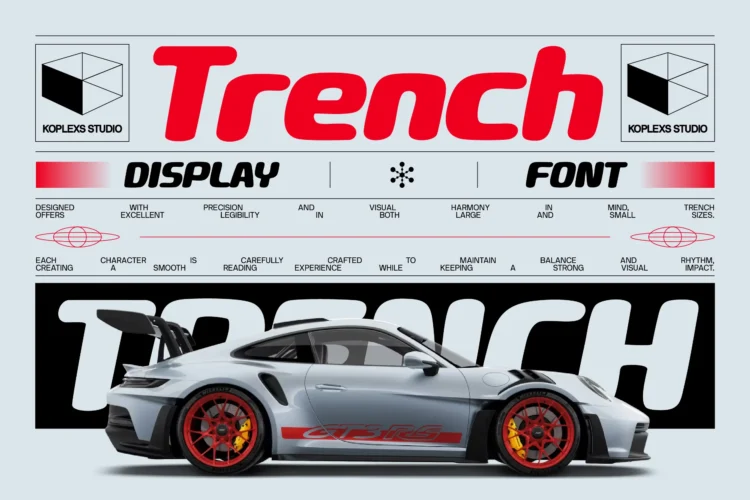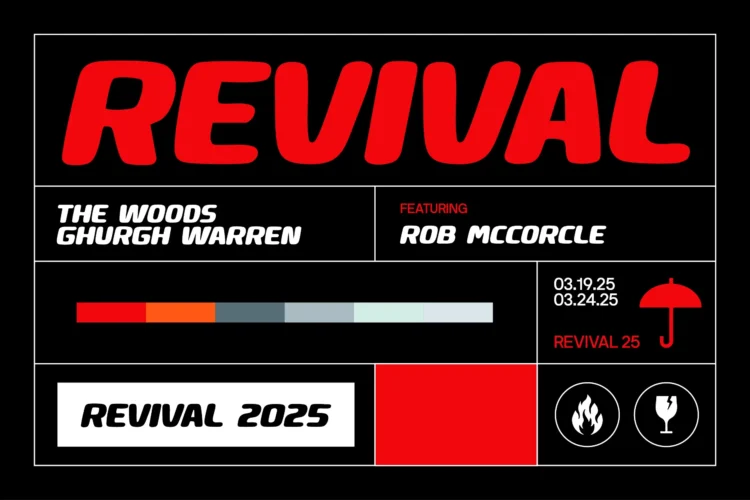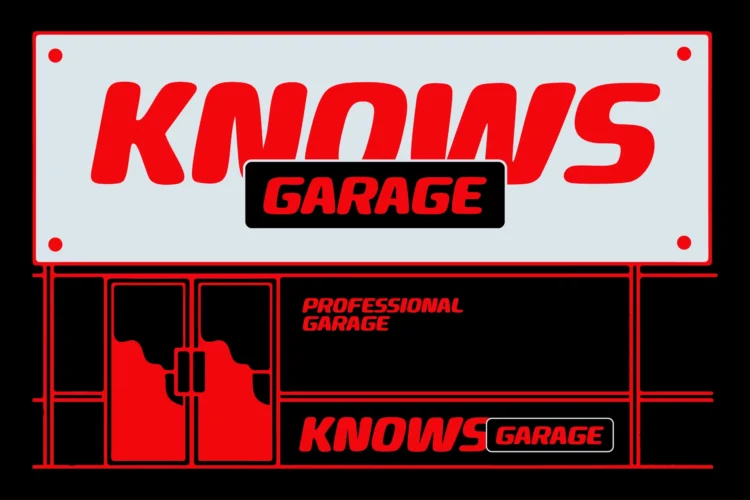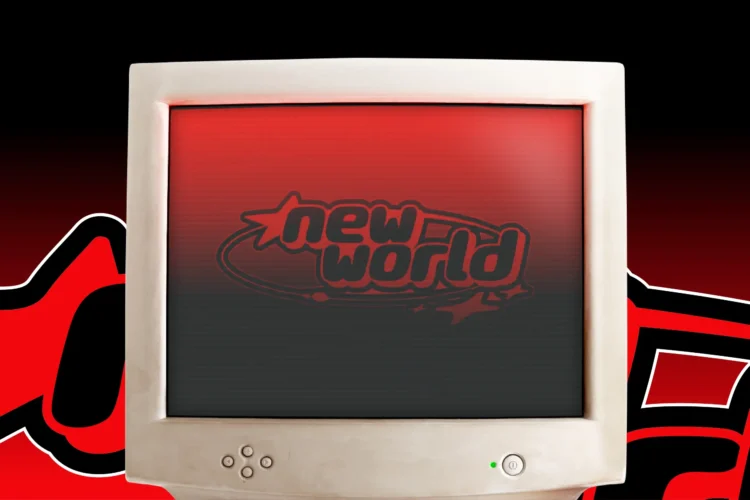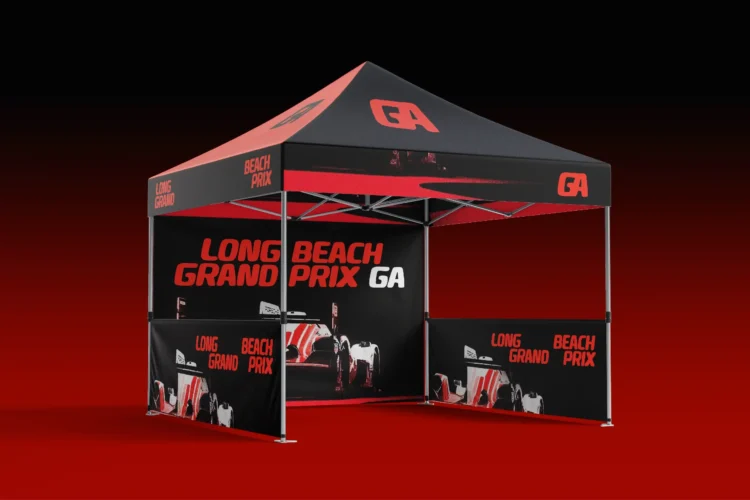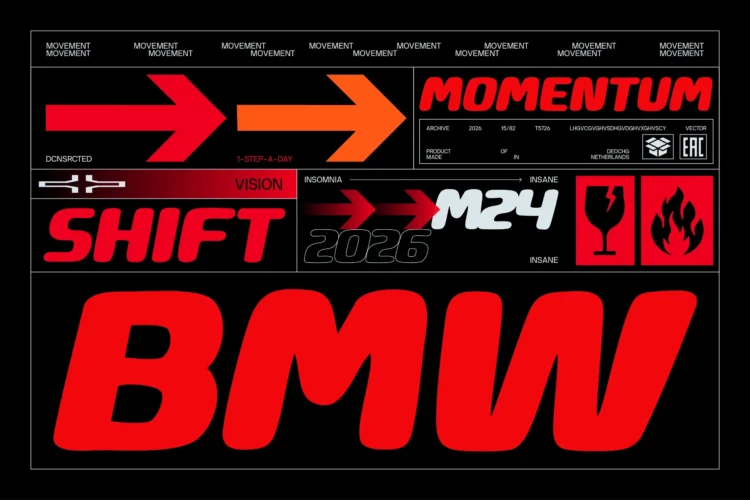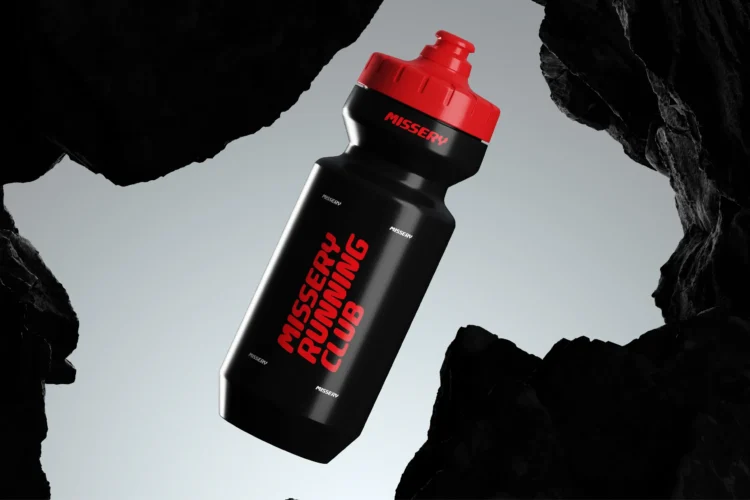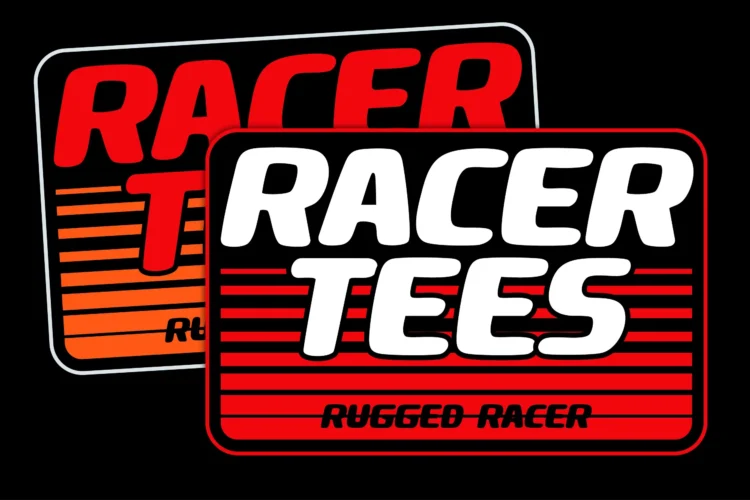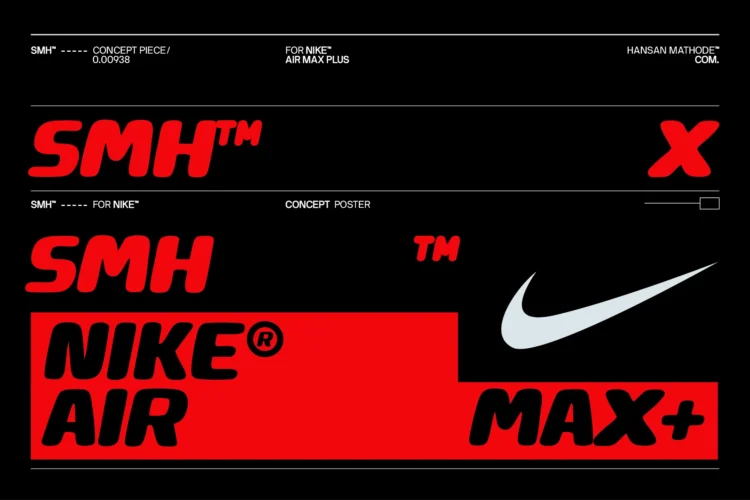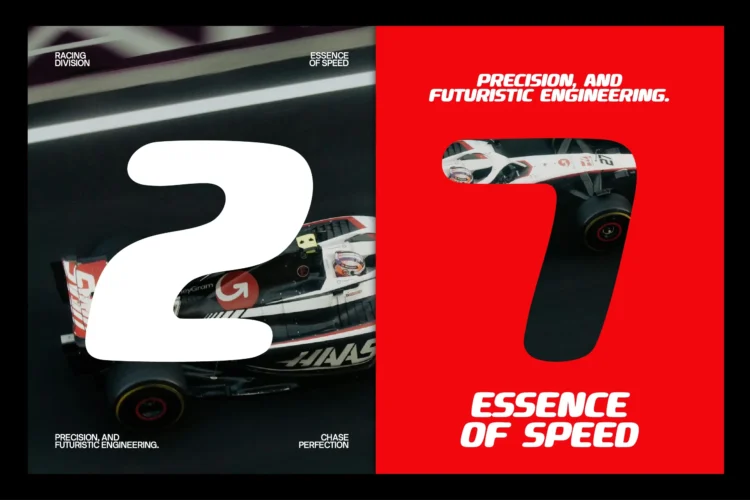
Trench Font: Motorsport Font for Racing Team Logos
Trench Font is a bold italic font by Koplexs Studio with thick strokes, rounded corners, and a forward slant. This rounded sans serif brings a sense of movement to short headlines and gives brand names a strong, distinctive shape.
Its broad letterforms balance racing energy with smooth, softened edges. Use it as a display font for bold statements, from automotive campaigns to streetwear graphics with an early 2000s feel. Large numerals also make an impact in race numbers, event dates, and promotional layouts.
Perfect For These Design Styles
- Racing team logos and automotive branding
- Garage signage and vehicle graphics
- Sports club identities and activewear
- Race posters, event banners, and exhibition booths
- T-shirt prints, stickers, and merchandise
- Social media headlines and Y2K-inspired artwork
Try uppercase for punchy event titles or lowercase for a softer, more casual wordmark. Pair Trench with a simpler text face when your layout needs supporting details.